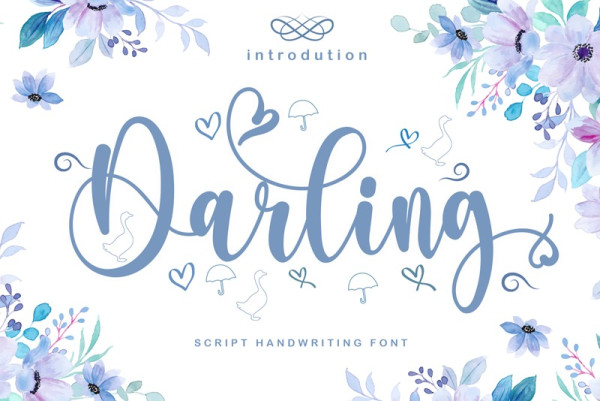
Darling Script Typeface
Darling Script Typeface, this font retains a classy calligraphic influence while feeling contemporary and fresh. This versatility will attract a wide range of creative ideas, from letterheads and titles to stationery.